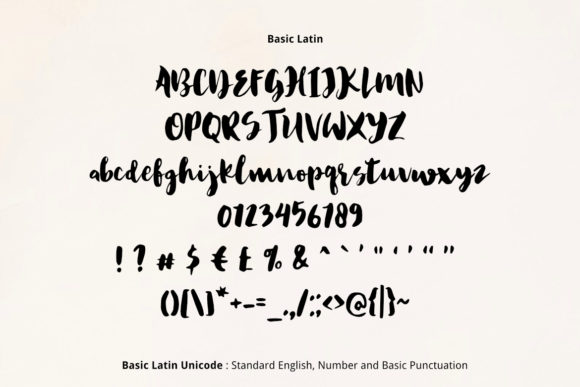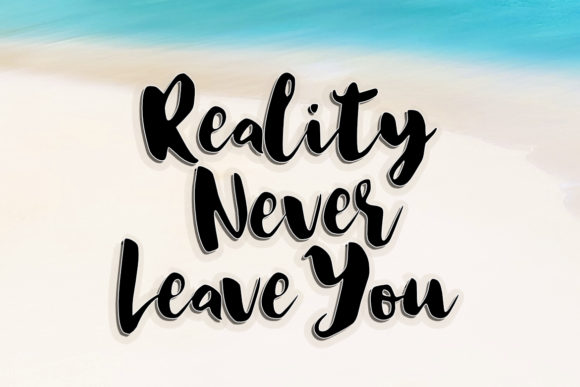
Discover the Charm of Balmy Day Font: A Unique and Playful Script
Are you tired of using the same old fonts in your designs? Look no further than Balmy Day Font, a unique and playful script that’s sure to add a touch of personality to your projects. With its cute twist and authentic charm, this font is perfect for designers and crafters looking to make their work stand out.
What is Balmy Day Font?
Balmy Day Font is a one-of-a-kind script font that’s designed to bring a smile to your face. Its playful and whimsical design makes it perfect for a variety of projects, from invitations and greeting cards to branding and advertising materials. The font’s unique twist lies in its ability to balance playfulness with elegance, making it suitable for both fun and professional applications.
The Characteristics of Balmy Day Font
So, what sets Balmy Day Font apart from other fonts? Here are a few of its key characteristics:
- Unique and Playful Design: Balmy Day Font features a distinctive and playful design that’s sure to grab attention.
- Cute Twist: The font’s cute twist adds a touch of whimsy and personality to your designs.
- Elegant and Refined: Despite its playful nature, Balmy Day Font remains elegant and refined, making it suitable for professional applications.
- Authentic Charm: The font’s authentic charm makes it perfect for designers and crafters looking to add a personal touch to their work.
Uses for Balmy Day Font
Balmy Day Font is incredibly versatile, making it suitable for a wide range of projects and applications. Here are a few ideas to get you started:
- Invitations and Greeting Cards: Add a personal touch to your invitations and greeting cards with Balmy Day Font’s playful and whimsical design.
- Branding and Advertising: Use Balmy Day Font to add a touch of personality to your branding and advertising materials, such as logos, brochures, and flyers.
- Social Media Graphics: Make your social media graphics stand out with Balmy Day Font’s unique and playful design.
- Crafting and DIY Projects: Add a personal touch to your crafting and DIY projects, such as handmade cards, gift tags, and scrapbooking pages.
Tips for Using Balmy Day Font
To get the most out of Balmy Day Font, here are a few tips to keep in mind:
- Experiment with Different Sizes: Balmy Day Font looks great in a variety of sizes, so don’t be afraid to experiment and find the perfect size for your project.
- Pair with Other Fonts: Try pairing Balmy Day Font with other fonts to create a unique and interesting contrast.
- Use in Combination with Images: Balmy Day Font looks great in combination with images, so try using it to add a personal touch to your graphics and illustrations.
| Font Name | Balmy Day Font |
| Author | YandiDesigns |
In conclusion, Balmy Day Font is a unique and playful script that’s sure to add a touch of personality to your designs. With its cute twist and authentic charm, this font is perfect for designers and crafters looking to make their work stand out. Whether you’re working on invitations, branding materials, or crafting projects, Balmy Day Font is a great choice. So why not give it a try and see the difference it can make?